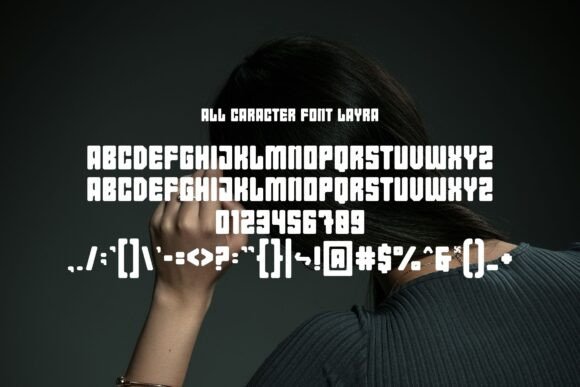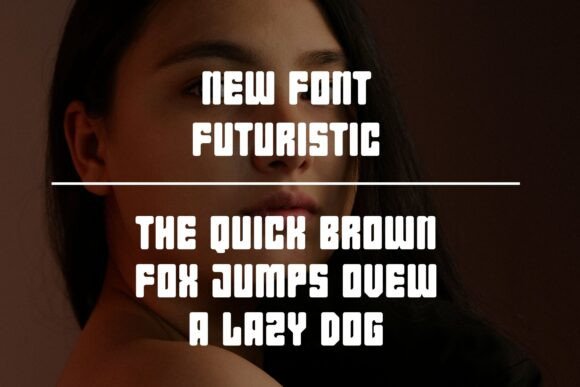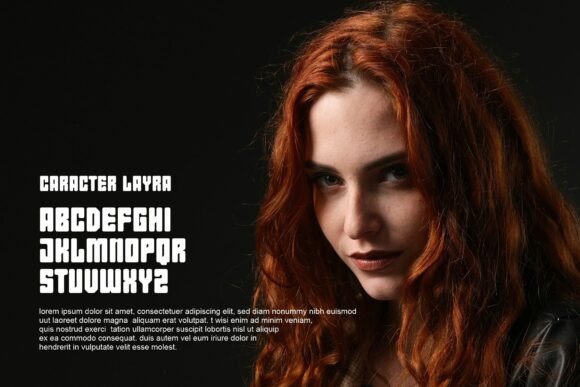
Introduction to Layra Font
I want to introduce this cool font, namely (Layra) which is a sans serif with a charming touch of style, this font also looks interesting because I added several alternative features that you can use, don’t forget to add an extrude style in it to make it look more attractive for the design.
πŸ‘€ Author riotama85
For you, this font is suitable for those of you who want a design that displays an interesting side but is still relevant for a charming modern look there’s nothing wrong if you feel all the experience of using this font in your designs, make this font as one of the font collections on your computer what you will get: Layra More OTF & TTF.
Layra Font offers exceptional quality and versatility, making it a valuable addition to your design toolkit. Whether you’re creating for personal projects or commercial use, Layra Font delivers professional results.